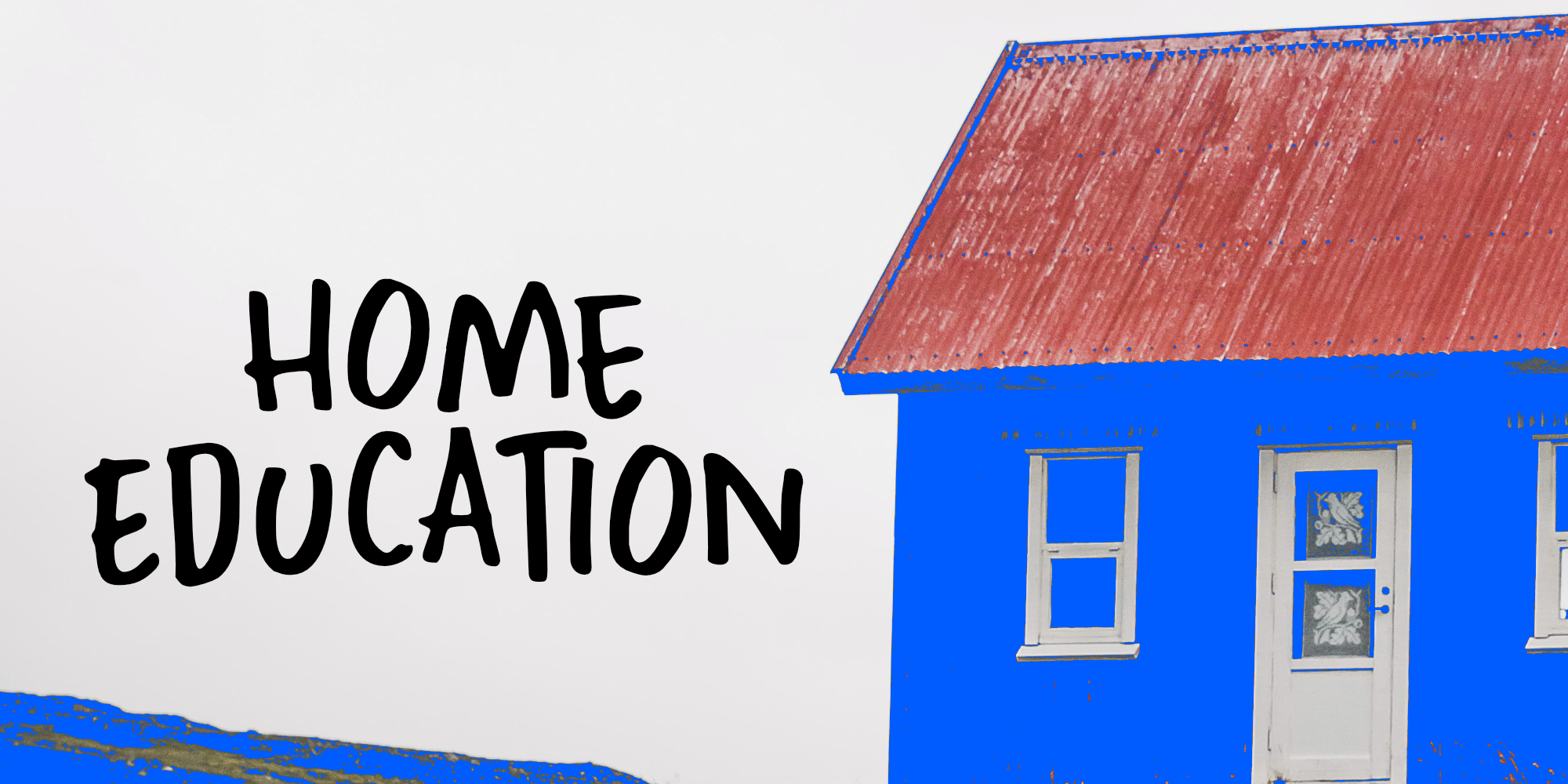
Home Education Font is a clear and wonderfully approachable typeface, perfectly suited for projects that aim to support learning, foster understanding, and create a comforting educational environment. Imagine it gracing the pages of children's learning workbooks, adding a friendly and legible touch to online educational platforms, or providing a warm aesthetic for family-oriented learning resources. It's also an excellent choice for crafting engaging school project materials, designing clear and inviting instructions for DIY educational activities, or infusing educational blogs and parent resources with a sense of genuine encouragement and clarity. If you're looking to convey simplicity, warmth, and an undeniable ease of learning, Home Education Font is an outstanding selection.
What makes Home Education Font so exciting? It’s its unique ability to combine a clean, unpretentious design with exceptional legibility, making it ideal for young readers and learners of all ages. This font often features well-defined letterforms, balanced spacing, and a consistent rhythm that minimize visual distraction and maximize comprehension. Its inviting character ensures that educational content feels less daunting and more accessible, fostering a positive learning experience. Designers will appreciate its versatility in creating materials that are both functionally effective and visually appealing, making it a go-to choice for educators, parents, and content creators dedicated to making learning a joyful and straightforward process.
The Home Education Font family is typically designed with a comprehensive range of weights and styles to provide maximum flexibility for diverse learning needs. You can generally expect to find variations such as Regular, Medium, and Bold, possibly with corresponding italic versions, each meticulously crafted to maintain consistent readability and aesthetic appeal across different applications. This extensive family ensures that Home Education Font can be used to create clear typographic hierarchies, maintain consistent branding across various educational materials, and offer flexible design solutions for both printables and digital learning tools. Discover the unwavering clarity and supportive style of Home Education Font Free Download for your next educational endeavor.